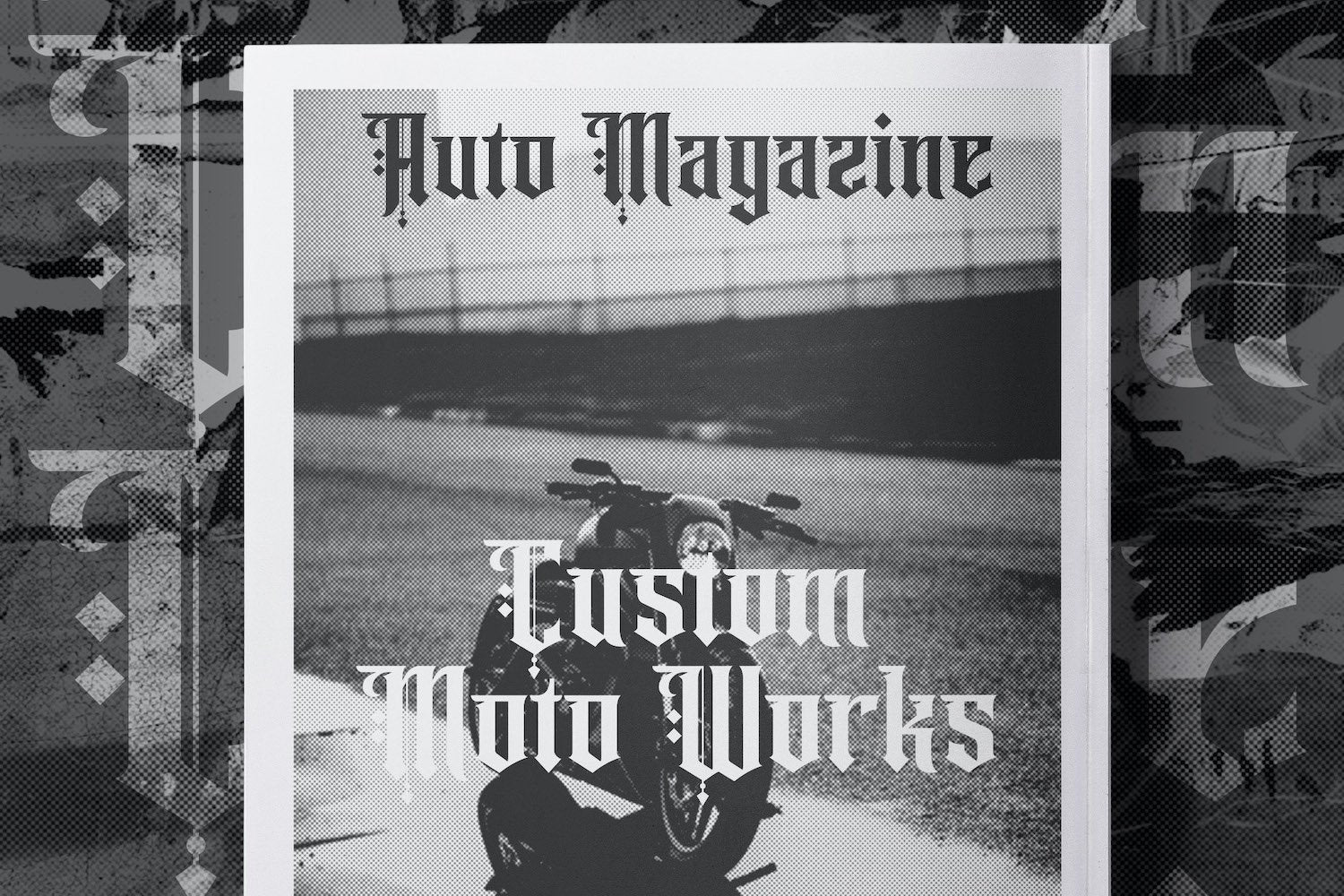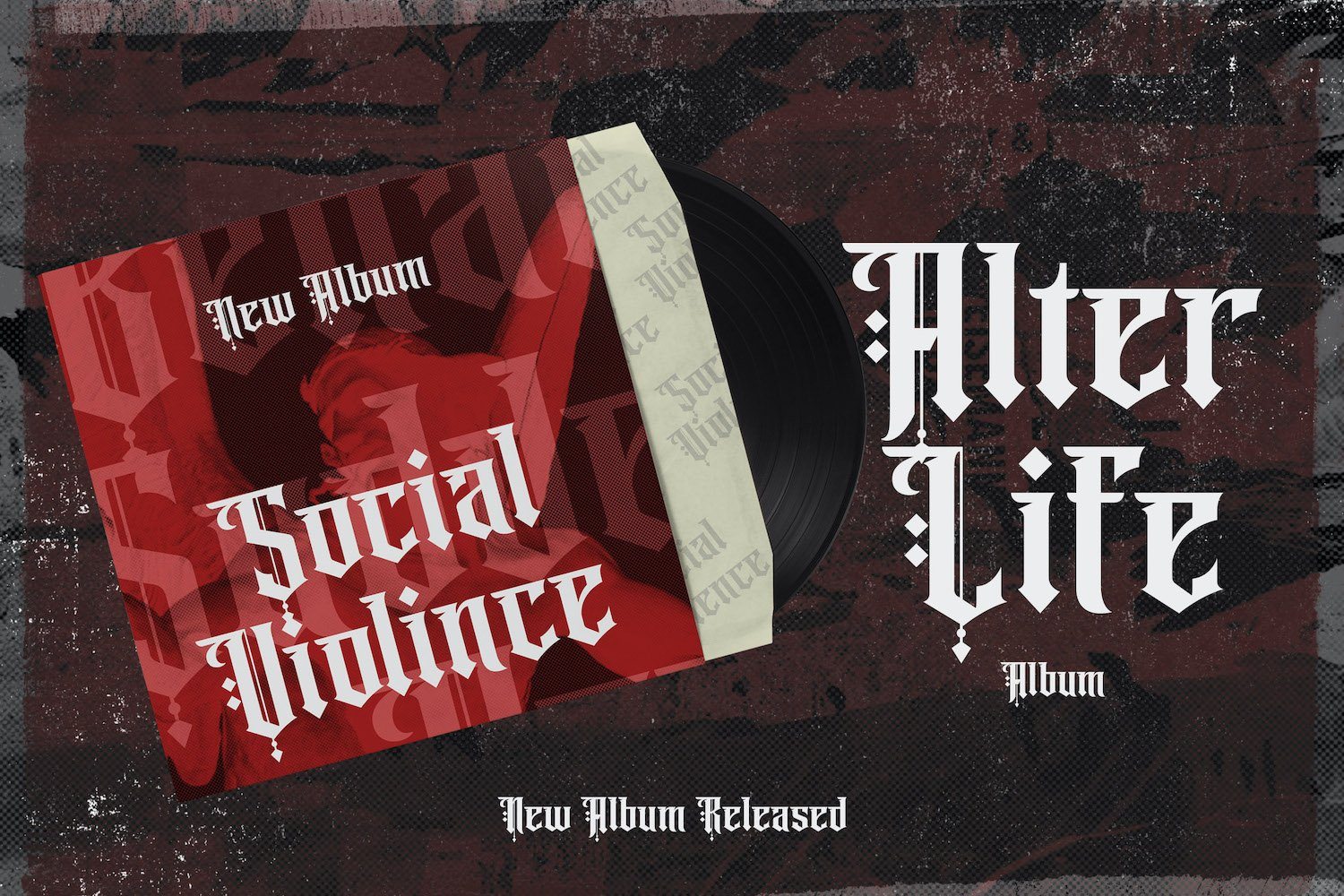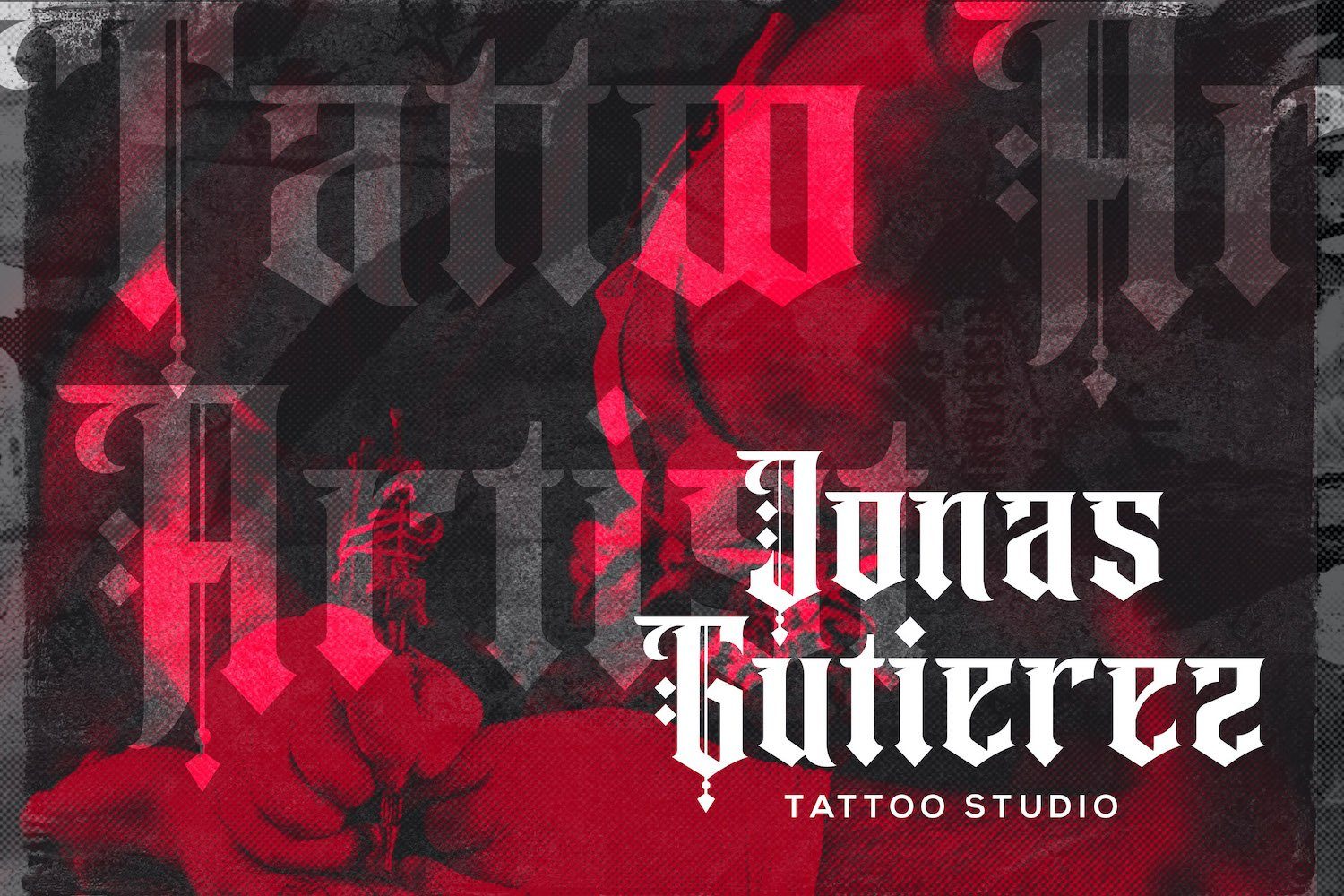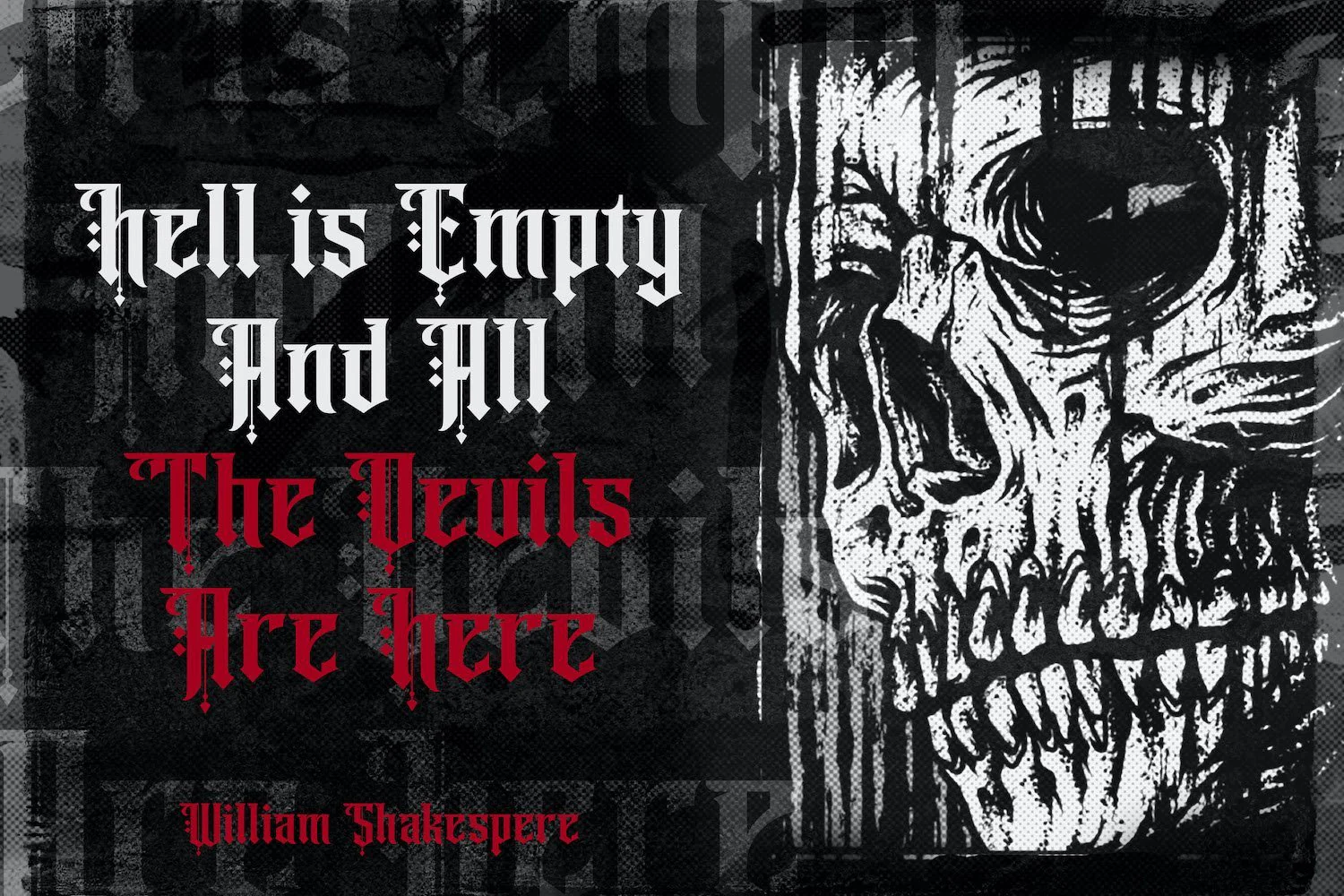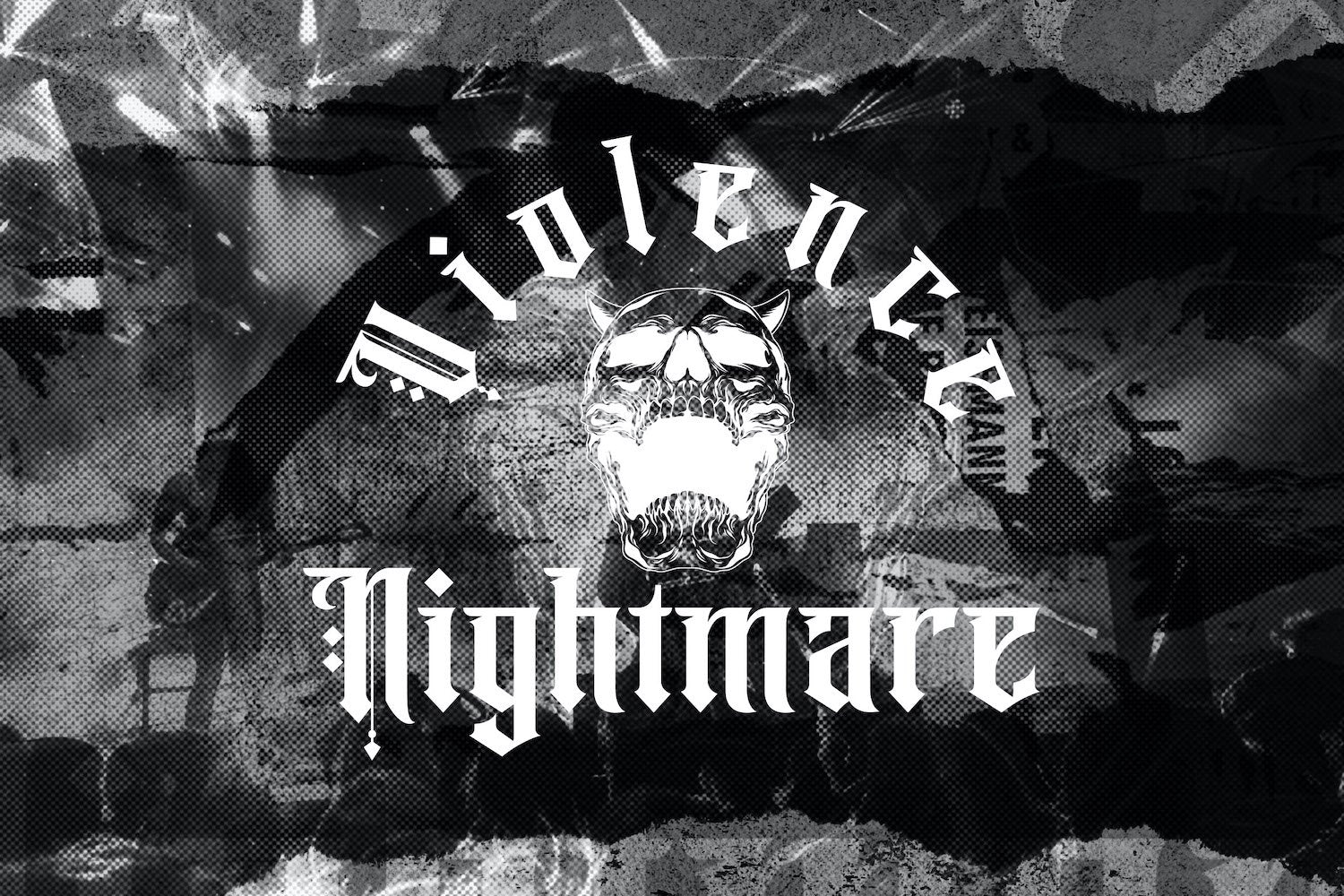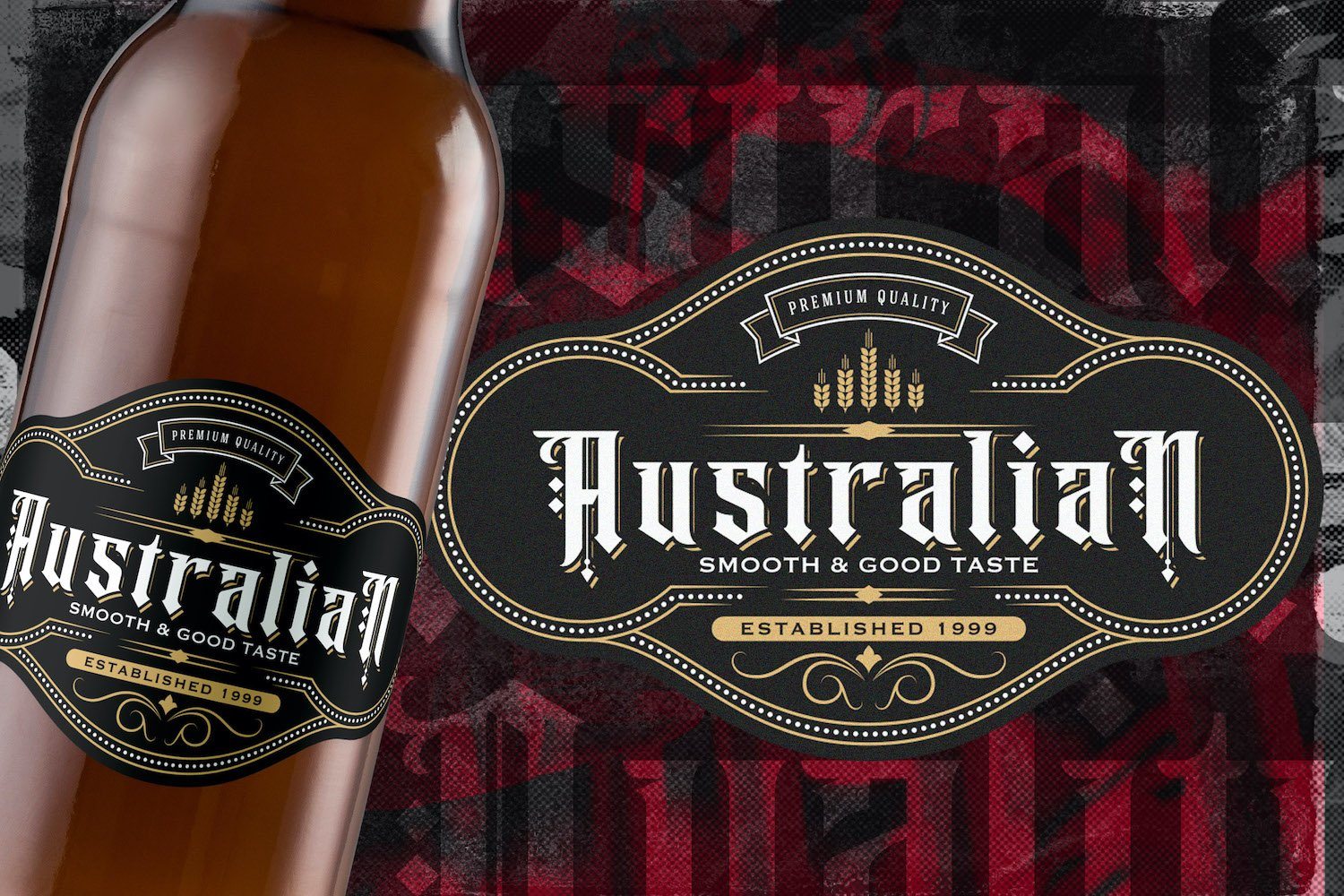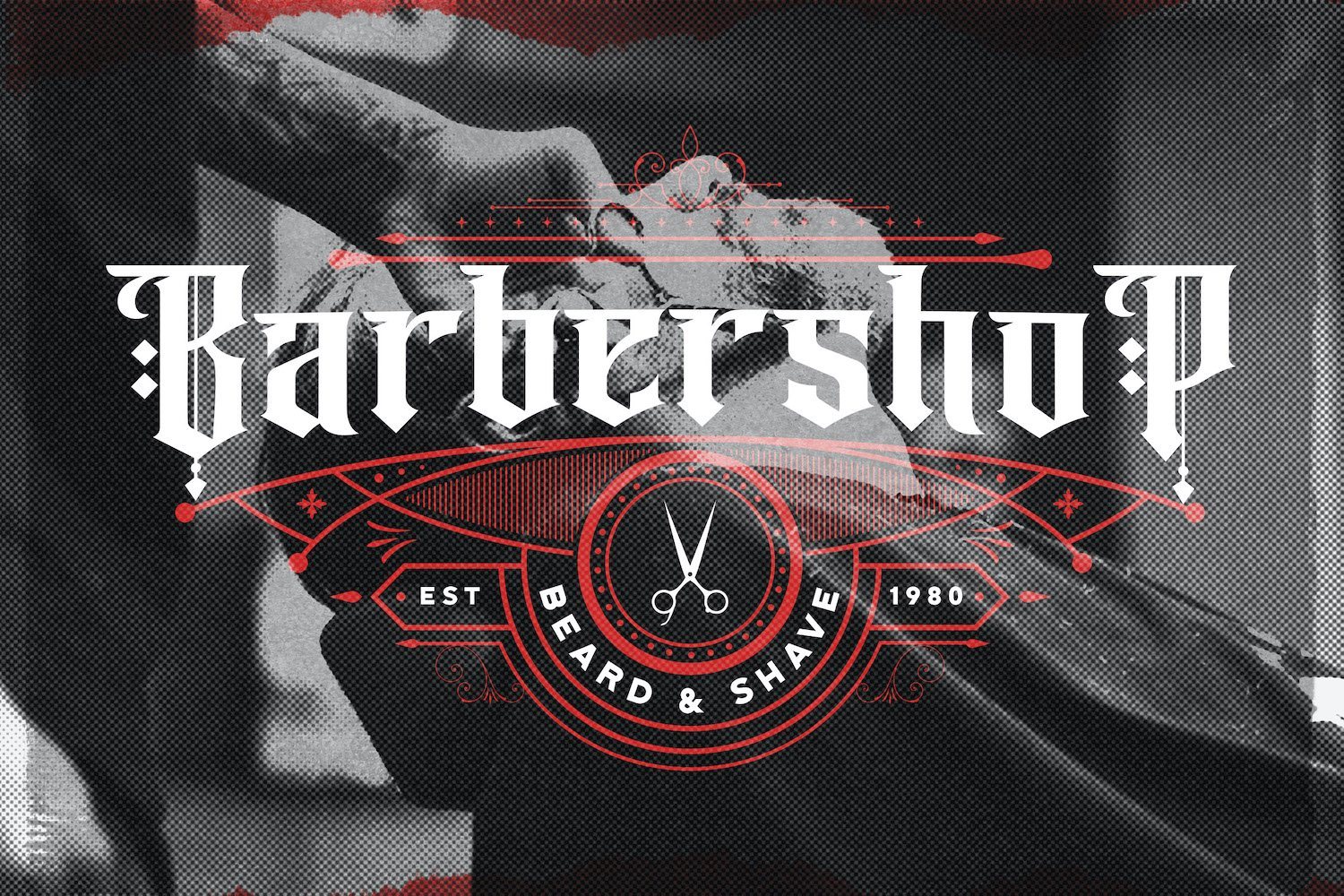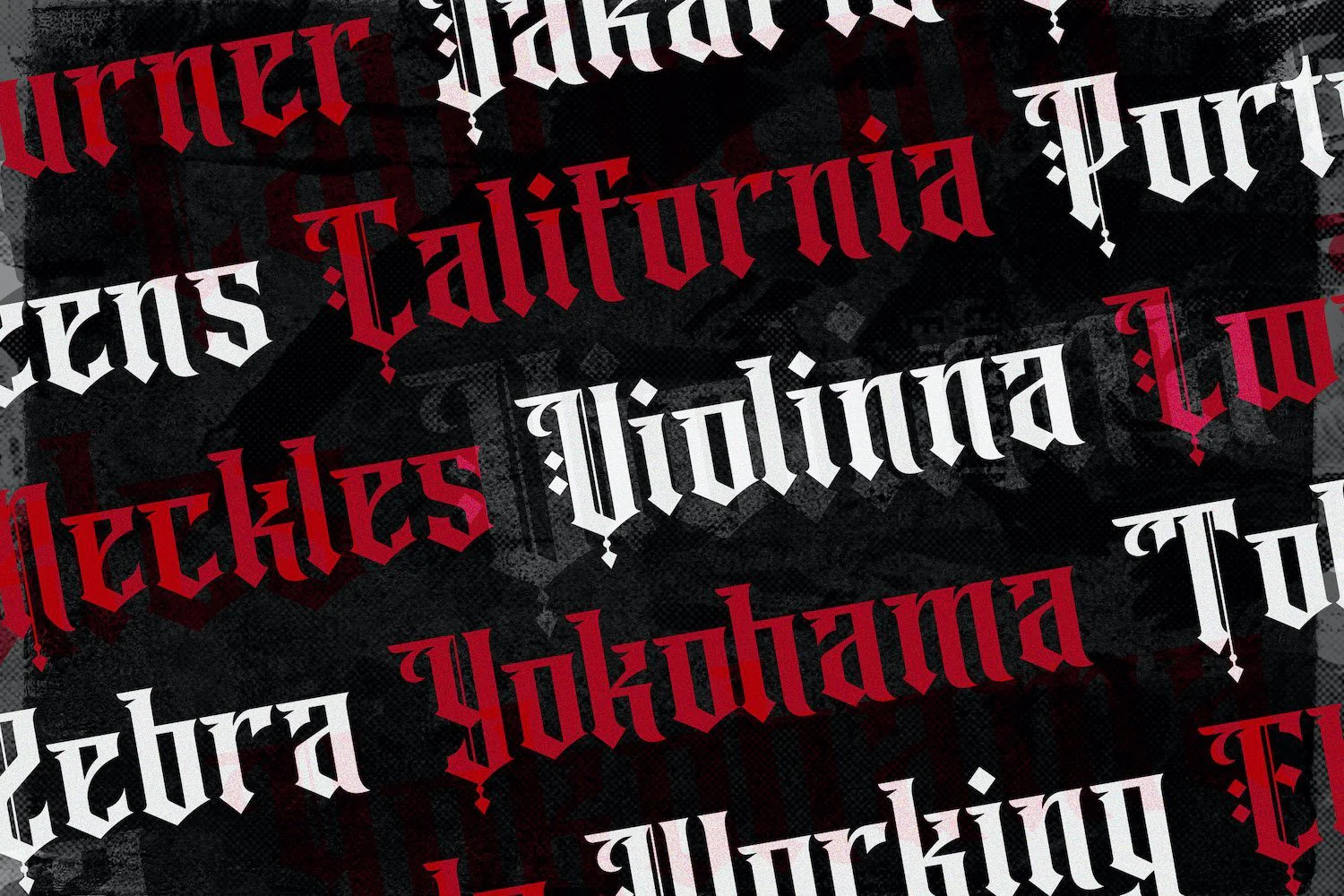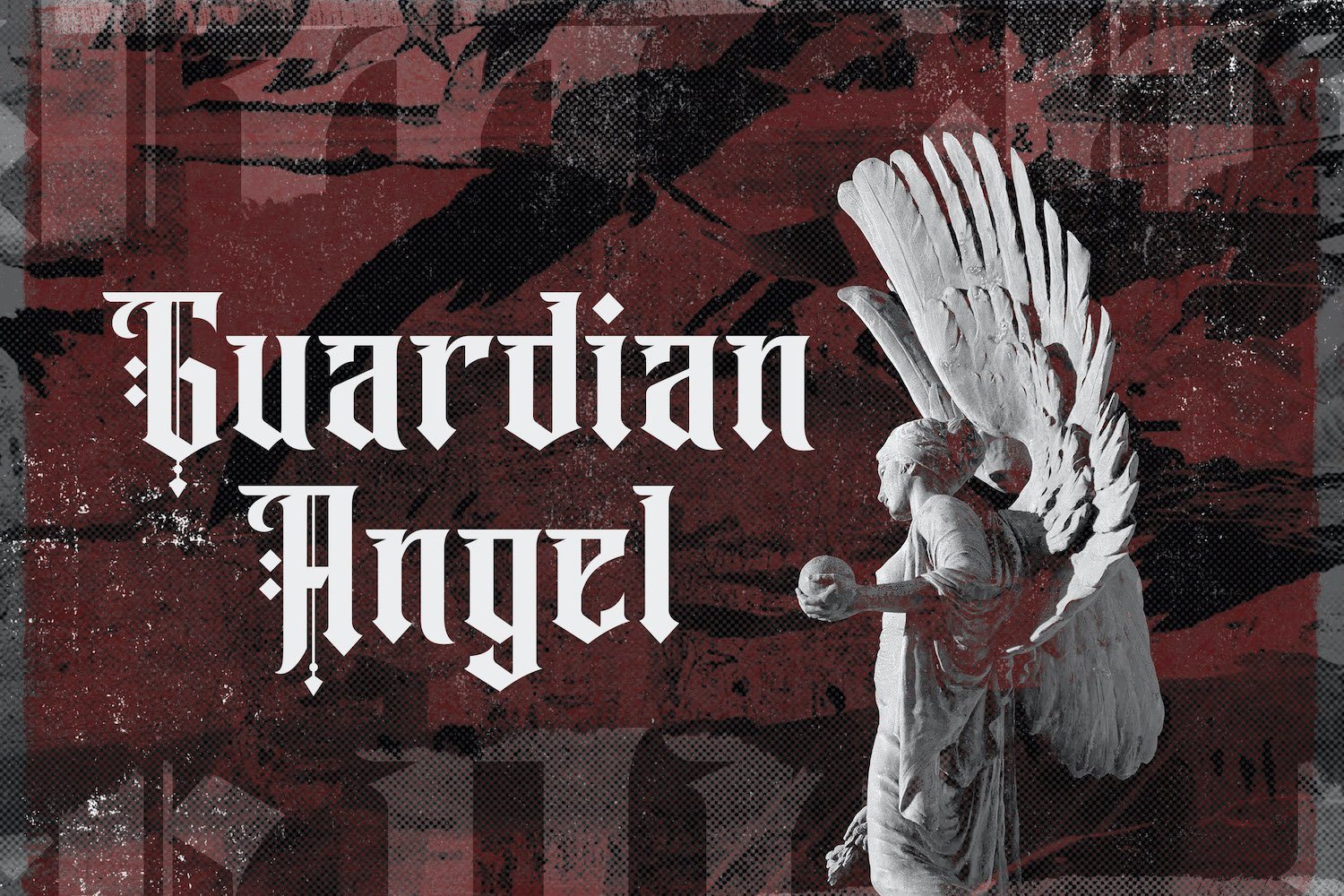
Angel Rhapsody - Blackletter Decorative Font
Introducing Angel Rhapsody - Blackletter Decorative Font
Angel Rhapsody is an incredibly authentic and daring blackletter font. Add this font to your favorite creative ideas and notice how it makes them stand out!